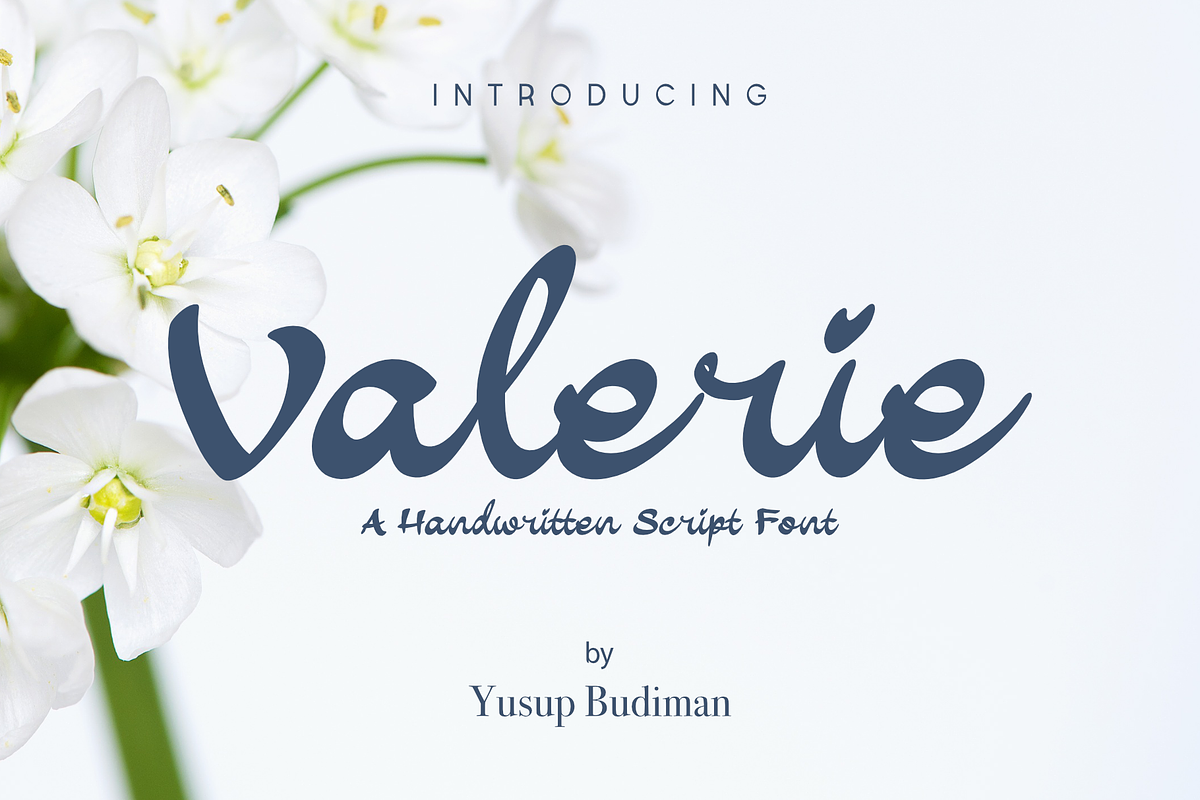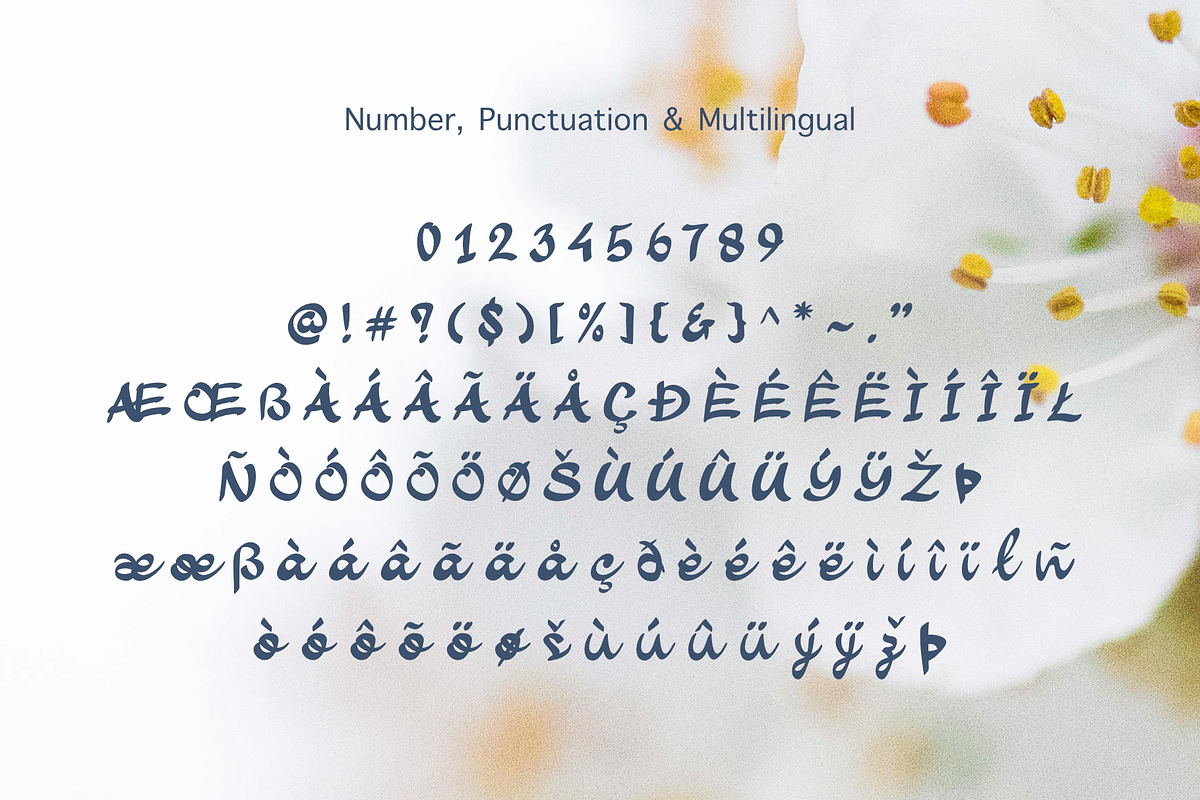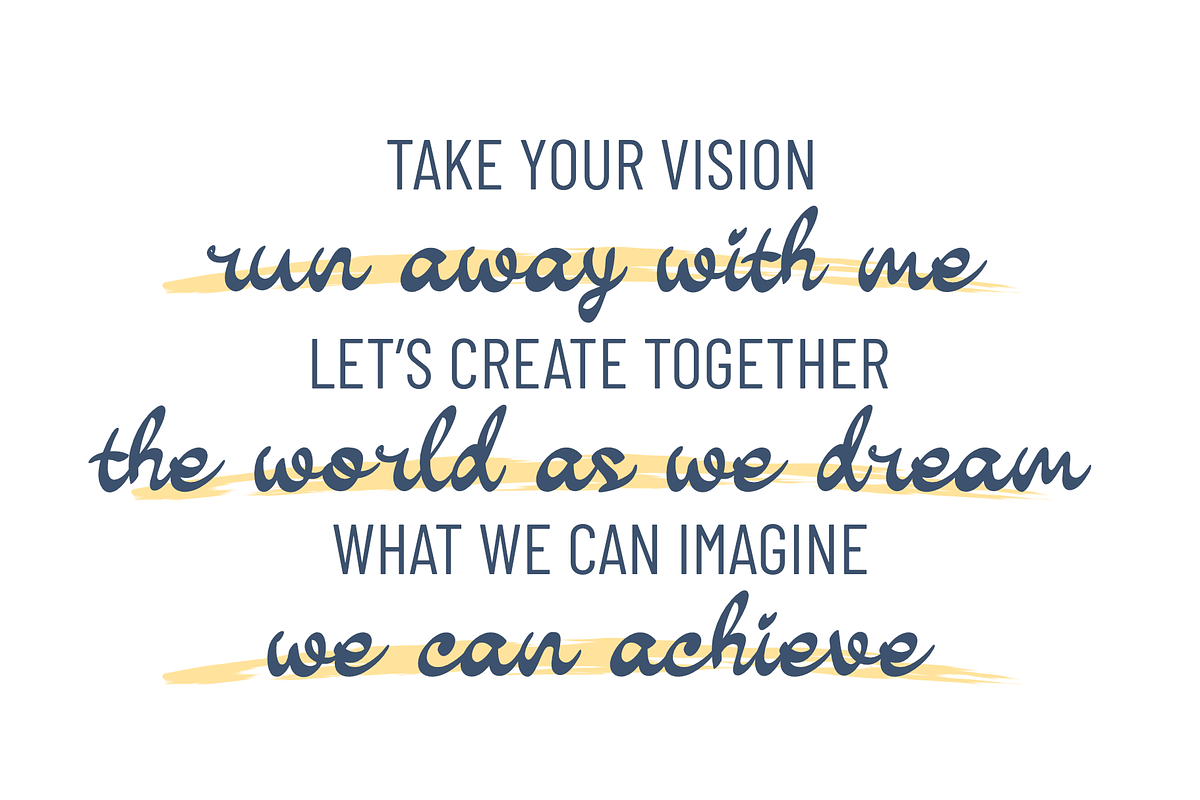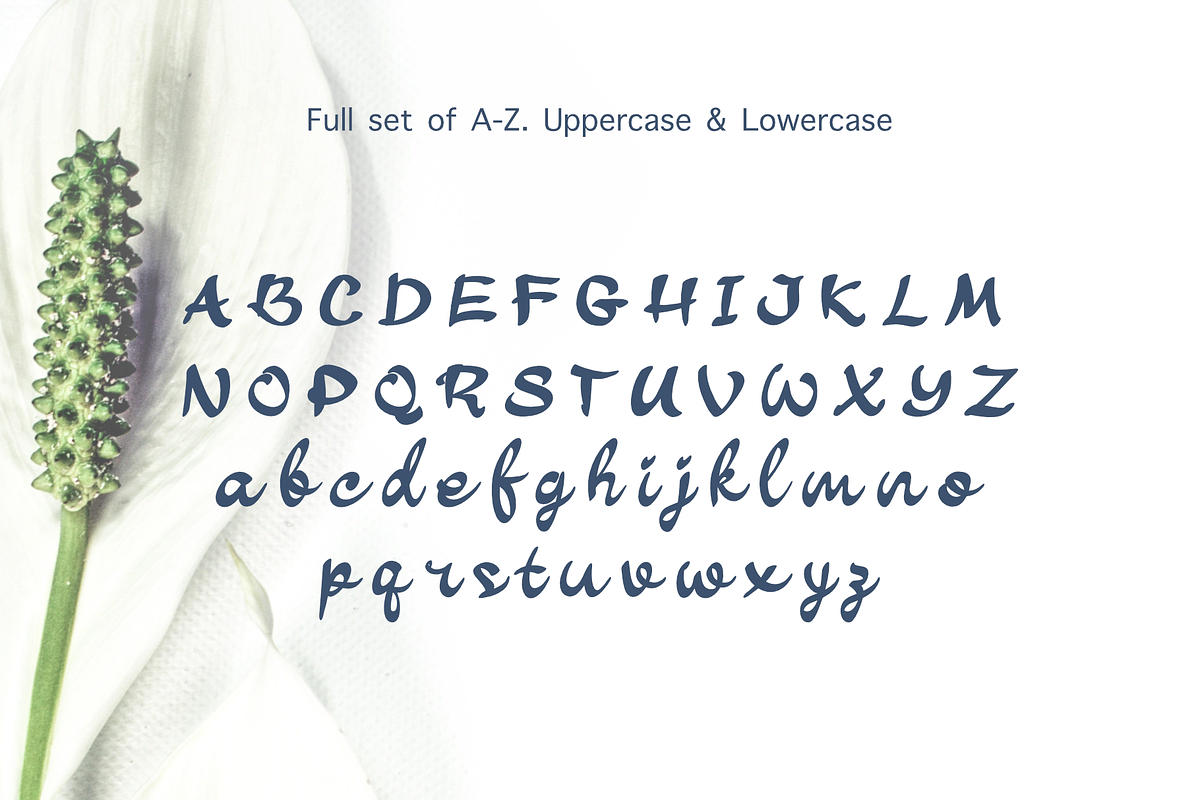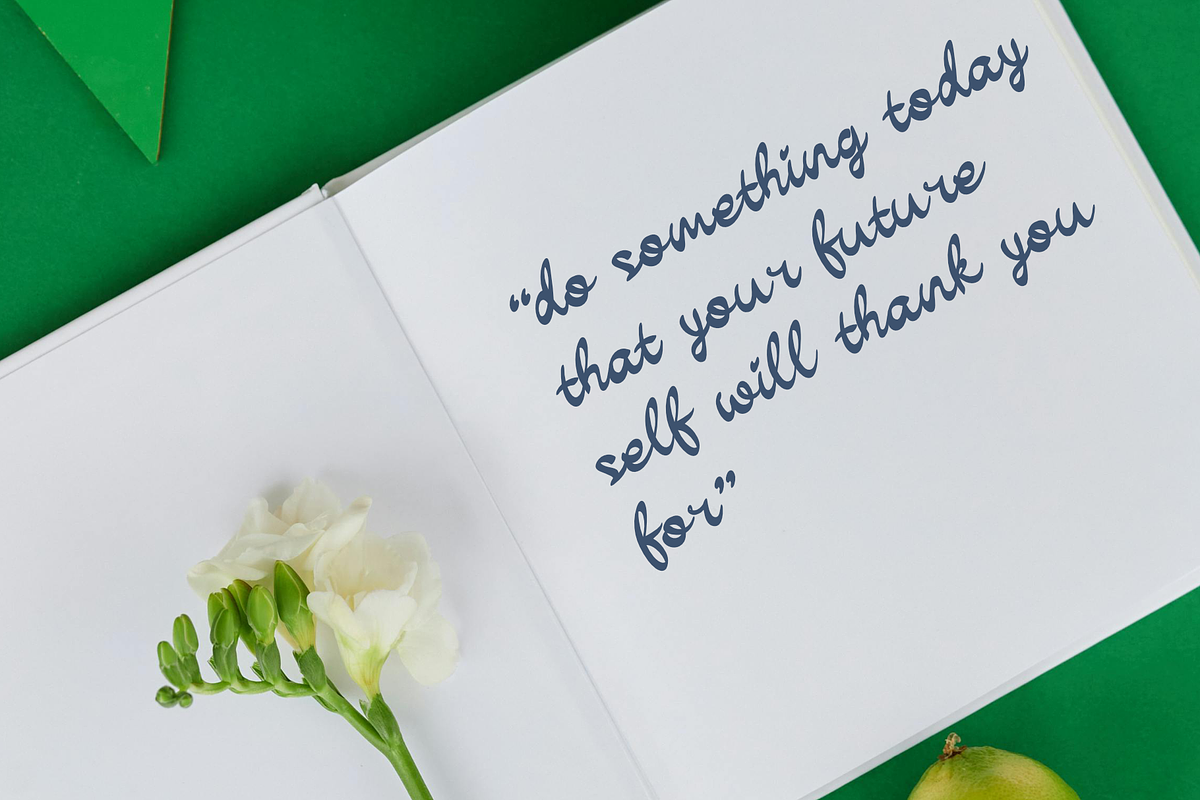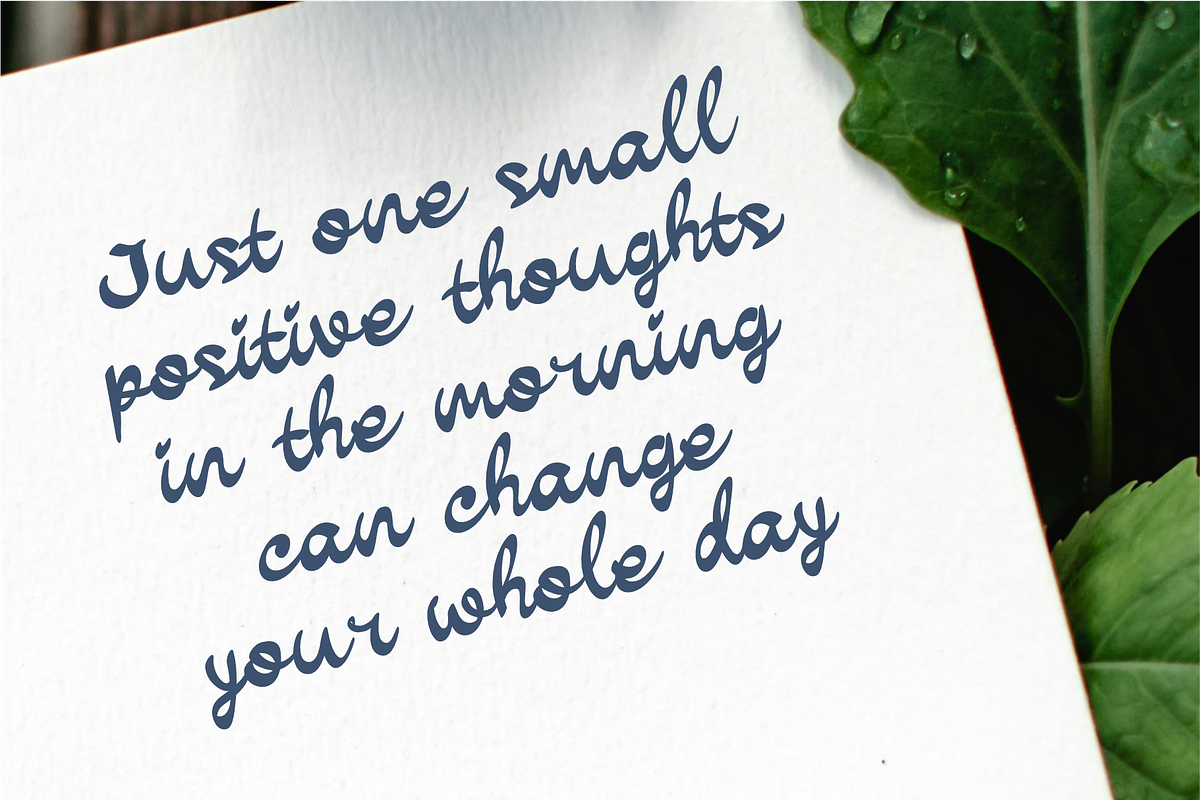
VALERIE — Elegant Handwritten Script Font
Valerie is a beautiful handwritten script font designed to bring a warm, natural, and personal touch to modern creative projects. Inspired by casual brush lettering and authentic handwriting, Valerie combines flowing letterforms with a relaxed and expressive rhythm.
The font has a soft yet confident personality, making it suitable for designs that need to feel personal, friendly, feminine, and creative. Its smooth strokes and connected script style create the feeling of a handwritten note while maintaining enough clarity for practical design applications.
Valerie is especially suitable for lifestyle branding, stationery, wedding designs, greeting cards, journals, planners, social media graphics, packaging, quotes, and creative small-business projects. It can work beautifully as a prominent headline, logo accent, signature-style element, or decorative phrase.
The versatility of Valerie allows it to move between elegant, casual, feminine, and contemporary aesthetics, making it a useful handwritten script for designers, crafters, content creators, and small business owners.
Logo & Branding
Wedding Invitations
Greeting Cards
Quotes & Typography
Journals & Planners
Stationery Design
Packaging & Labels
Beauty & Lifestyle Branding
Handmade Products
Scrapbooking
Blog & Editorial Design